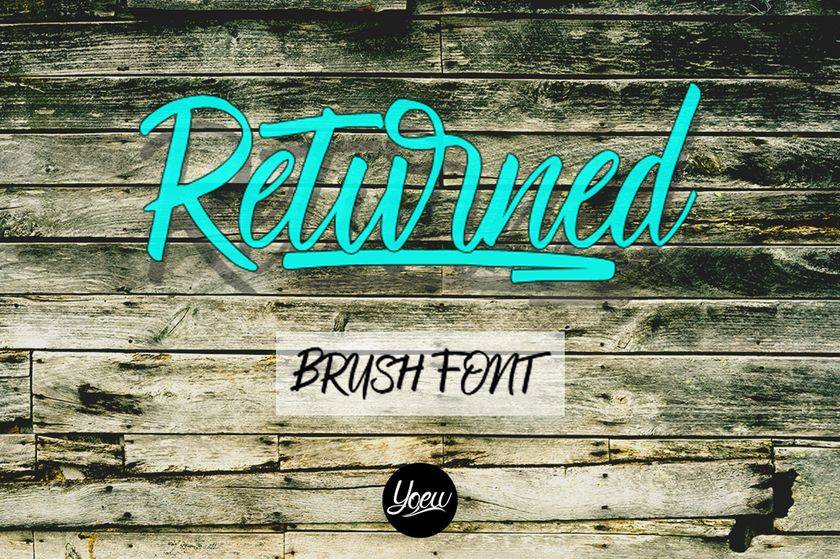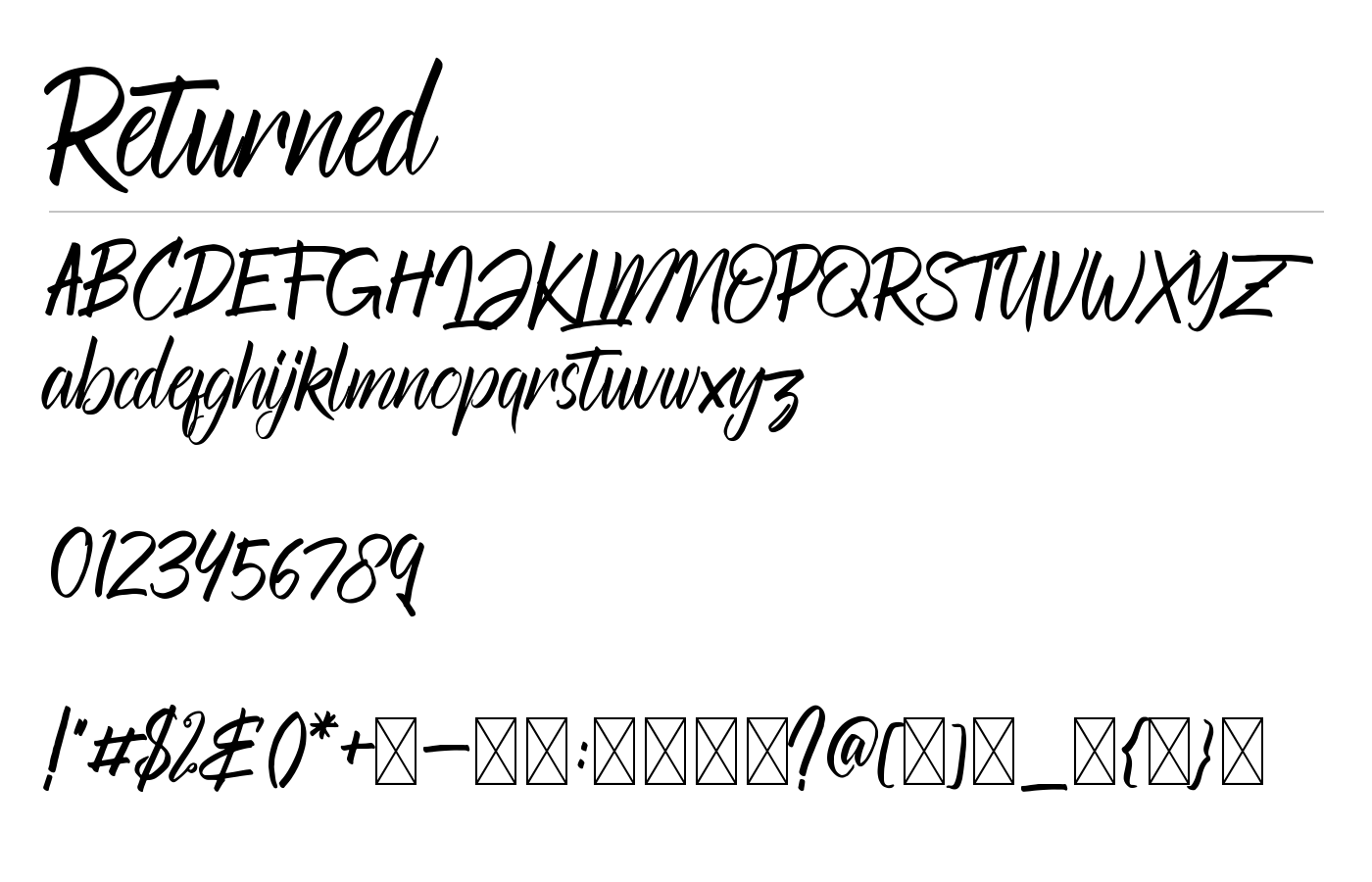
Returned Font is a lively, casual script typeface with smooth, flowing strokes that mimic natural handwriting. Its moderate contrast and slender letterforms give it a friendly and approachable feel, making it perfect for creative branding, invitations, or editorial projects where a personal touch is desired. This font brings warmth and personality to designs while maintaining clarity and style.
Returned Font
About Returned Font